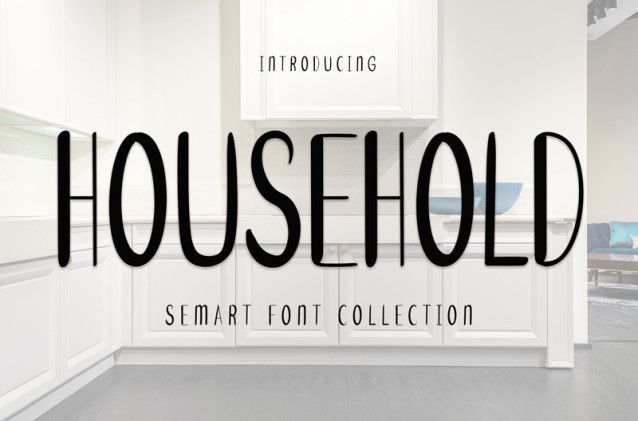
Household Font
Household Font is a stylish handwritten font with a contemporary atmosphere and impeccable form, inspired by timeless classic calligraphy. Balanced and varied, this font was designed to enhance the beauty of your projects.